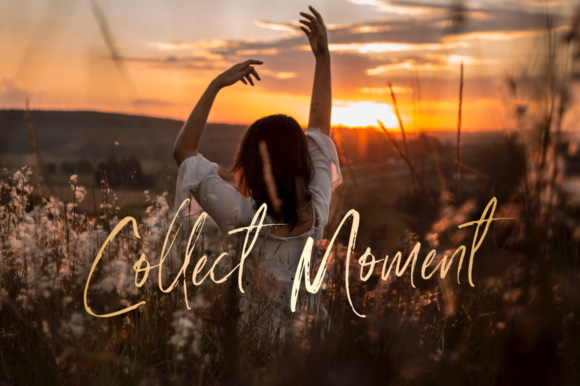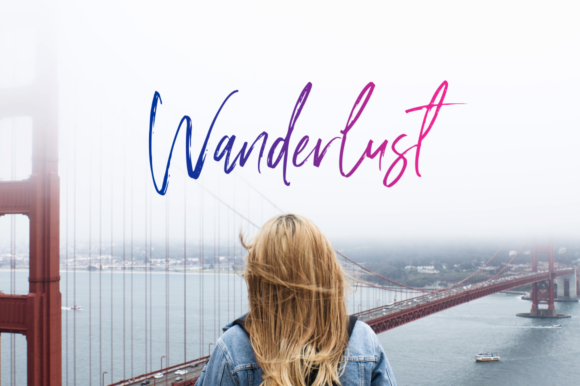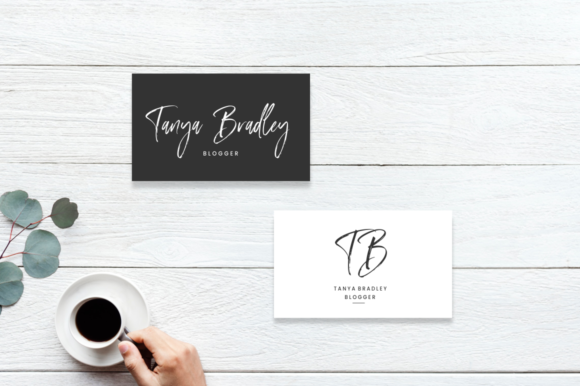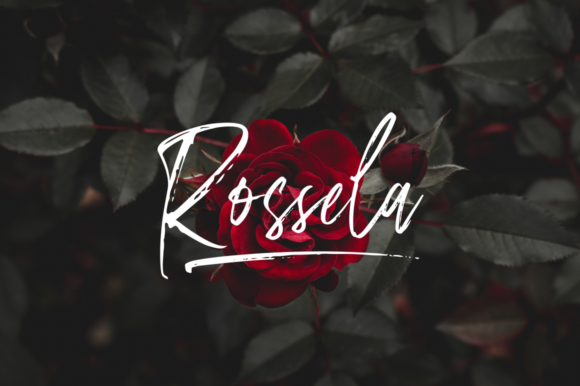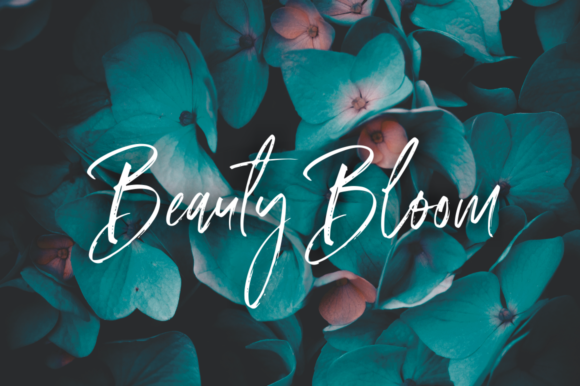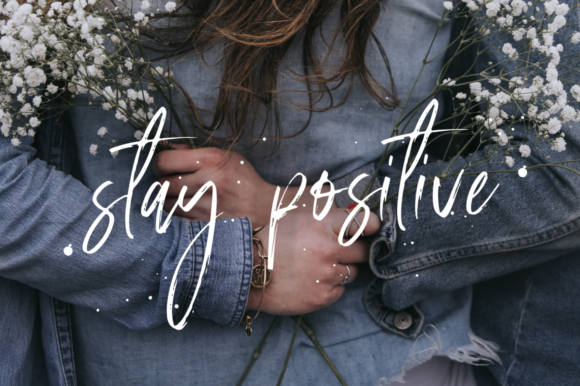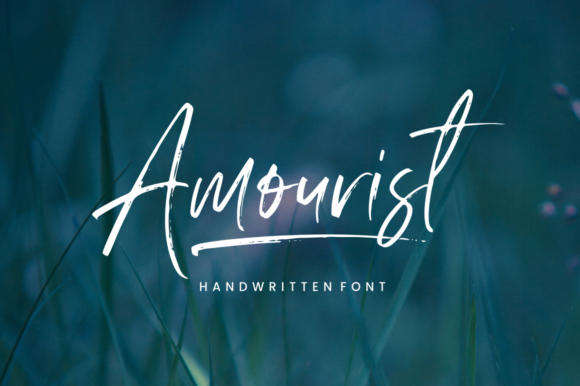
Introducing Amouris Font: Elevate Your Design with Elegance and Timelessness
In the world of typography, a font can make or break a design project. A beautiful and delicate handwritten font can add a touch of sophistication and elegance, making your project stand out from the rest. This is where Amouris Font comes in – a stunning handwritten font that exudes an air of refinement and timelessness. In this article, we’ll dive into the world of Amouris Font, exploring its features, benefits, and uses, and why it’s a must-have for designers and crafters alike.
What is Amouris Font?
Amouris Font is a beautiful and delicate handwritten font, carefully crafted to bring an elegant and timeless touch to any design project. Its intricate strokes, flowing curves, and subtle nuances make it a true masterpiece of typography. Whether you’re working on a branding project, a wedding invitation, or a craft project, Amouris Font is the perfect choice to add a touch of sophistication and whimsy.
Features of Amouris Font
So, what makes Amouris Font so special? Here are some of its key features:
• Delicate and elegant: Amouris Font boasts a delicate and elegant design, perfect for projects that require a touch of sophistication.
• Handwritten with love: Each letter has been carefully handcrafted to ensure a personal and unique feel.
• Timeless appeal: Amouris Font’s classic design ensures it will never go out of style, making it a great investment for designers and crafters.
• Versatile: Use Amouris Font for a wide range of projects, from branding and advertising to wedding invitations and craft projects.
Benefits of Using Amouris Font
So, why should you choose Amouris Font for your next project? Here are some benefits of using this stunning font:
• Adds elegance and sophistication: Amouris Font instantly elevates your design, adding a touch of refinement and poise.
• Unique and personal: The handwritten nature of Amouris Font ensures your project stands out from the crowd.
• Easy to read: Despite its delicate design, Amouris Font is surprisingly easy to read, making it perfect for body text and headlines.
• Supports multiple languages: Amouris Font supports a wide range of languages, making it a great choice for international projects.
Using Amouris Font in Your Design Projects
So, how can you use Amouris Font in your design projects? Here are some ideas to get you started:
• Branding and advertising: Use Amouris Font to create stunning logos, business cards, and ad campaigns.
• Wedding invitations and stationery: Add a touch of elegance and whimsy to your wedding invitations, save-the-dates, and stationery.
• Craft projects: Use Amouris Font to create beautiful craft projects, such as handmade cards, scrapbooking, and DIY home decor.
• Digital products: Use Amouris Font to create stunning digital products, such as ebooks, workbooks, and printables.
In conclusion, Amouris Font is a beautiful and delicate handwritten font that adds an elegant and timeless touch to any design project. Its intricate strokes, flowing curves, and subtle nuances make it a true masterpiece of typography. Whether you’re a designer, crafter, or DIY enthusiast, Amouris Font is a must-have in your font collection. So why wait? Get your hands on Amouris Font today and elevate your design projects to new heights!